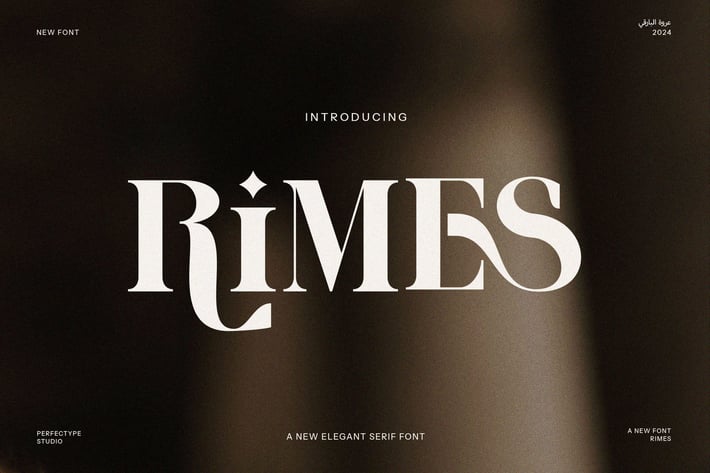
Rimes Elegant Serif Font
Rimes Elegant Serif Font is a sophisticated and contemporary serif typeface that seamlessly blends timeless elegance with modern flair. Designed with attention to detail, this font features beautifully crafted letterforms, offering an exceptional range of ligatures and alternates that elevate any design project. Its refined structure makes Rimes a versatile choice for a wide range of creative applications, from high-end branding and logos to luxurious magazine layouts and premium product packaging.
The unique ligature and alternate features of Rimes Elegant Serif give it an artistic edge, providing designers with the flexibility to create distinctive typographic compositions that stand out. Whether used for large headlines or elegant body text, this font ensures a polished and professional look across both digital and print mediums.
Perfect for fashion brands, boutique shops, upscale websites, and advertisements, Rimes Elegant Serif brings a sense of prestige and style to any project. Its sharp, yet graceful serifs are ideal for conveying luxury and sophistication, making it the perfect choice for industries that demand high-quality aesthetics, such as luxury goods, food brands, and lifestyle publications.
With its balanced proportions and versatile nature, Rimes is not only a practical choice but also a creative tool that can breathe life into any visual identity. If you're looking for a modern, elegant serif font that makes a statement, Rimes Elegant Serif is the perfect solution for your design needs.